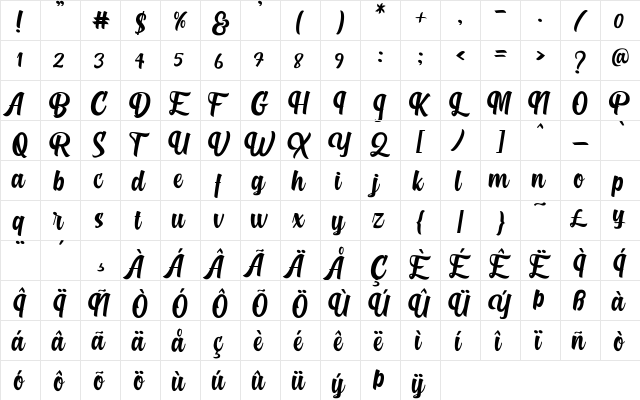
Dalgona Regular
| Foundry | Ari Fadli (Debut Studio) |
Design Context for Dalgona Typeface
Dalgona is a composed and adaptable typeface that performs quietly and consistently across a wide range of design contexts.